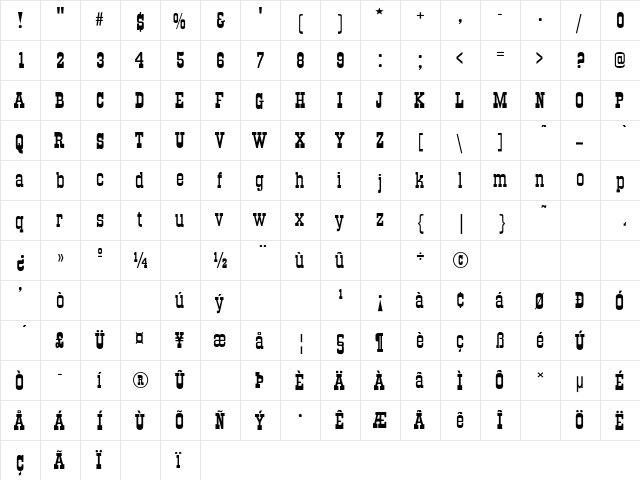
Florinda Ext-Normal Regular
Design Context for Florinda Ext-Normal Typeface
Florinda Ext-Normal is a composed and adaptable typeface that performs quietly and consistently across a wide range of design contexts.